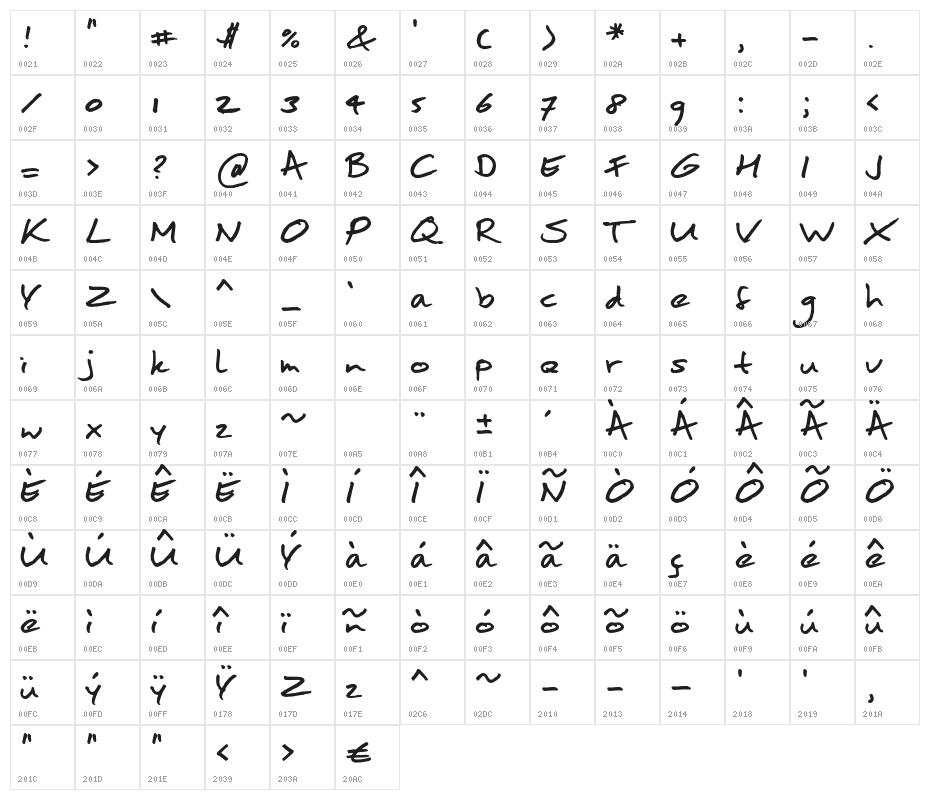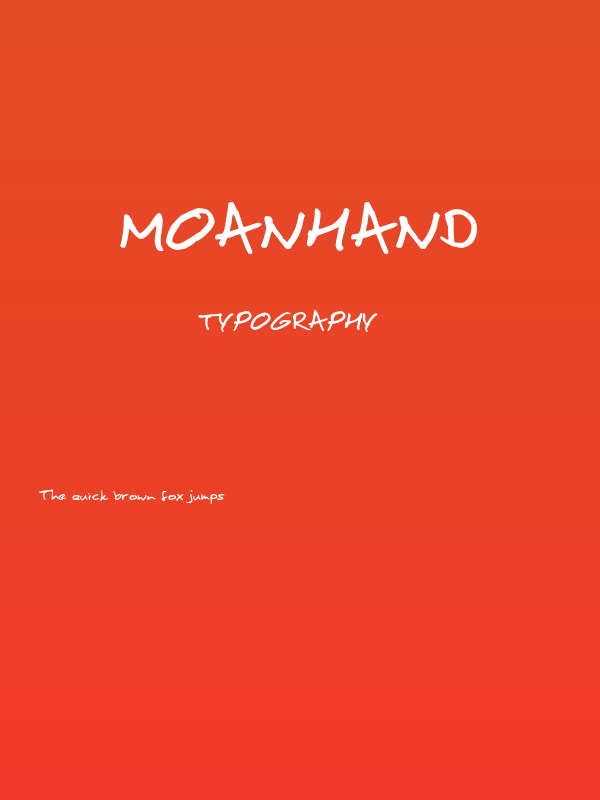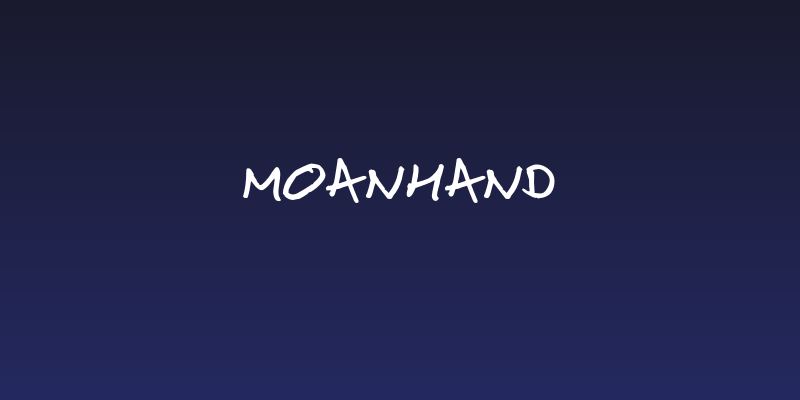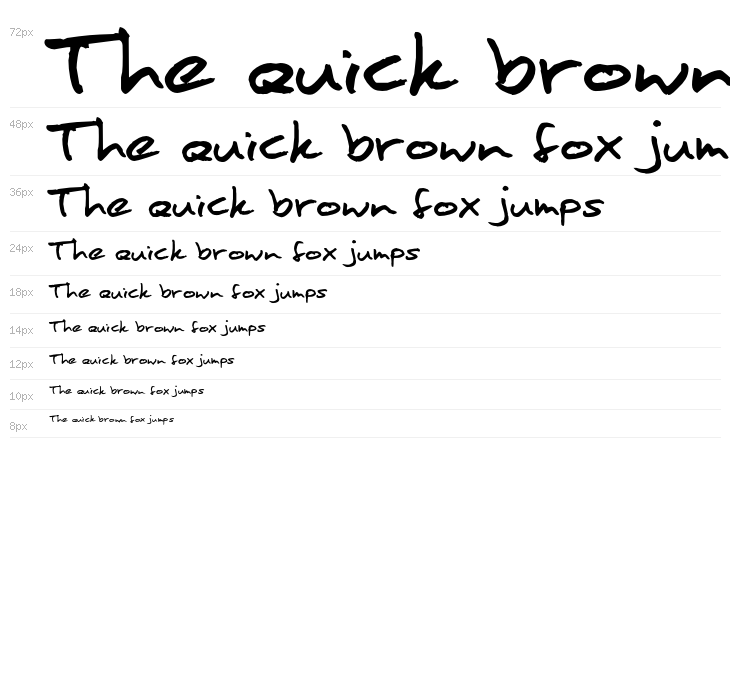
MoanHand Font
MoanHand Description
This font exudes a casual, handwritten style, characterized by its fluid and organic strokes. The letters are slightly irregular, giving it an authentic and personal touch. The uppercase and lowercase letters maintain a consistent flow, while the numerals and special characters complement the overall aesthetic. The strokes vary in thickness, adding a dynamic and lively feel to the text. This font is perfect for projects that require a personal or informal tone, such as invitations, greeting cards, or creative branding.
| Overall Style | Casual |
| Use Case | Headlines, Logos, Informal Text |
| Proposed Projects | Ideal for invitations, greeting cards, personal branding, and creative projects. |